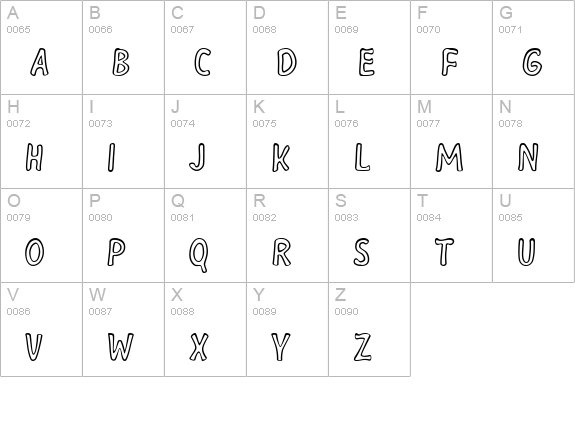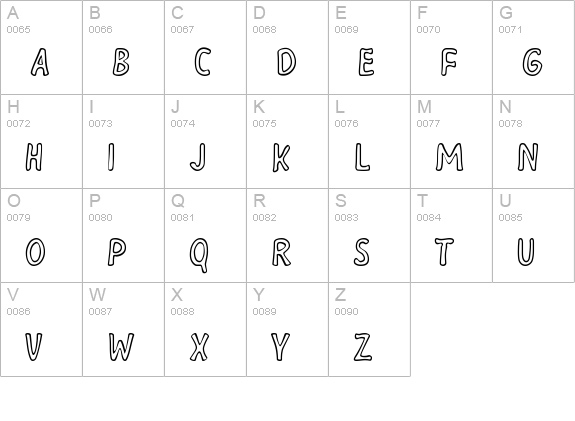
MushmellowOutline Font Details
MushmellowOutline font is a whimsical and playful typeface that is sure to add a touch of charm to any project. With its rounded edges and unique design, this font is perfect for creating eye-catching headlines, posters, and more. The outline style gives it a modern and trendy look that will make your designs stand out. Best of all, MushmellowOutline font is available for free! You can download this delightful font at FontsMarket.com and start using it in your projects right away. Whether you're designing for personal use or a client project, MushmellowOutline font is sure to bring a touch of fun and creativity to your work. Don't miss out on this fantastic free font - download it today and let your creativity shine!